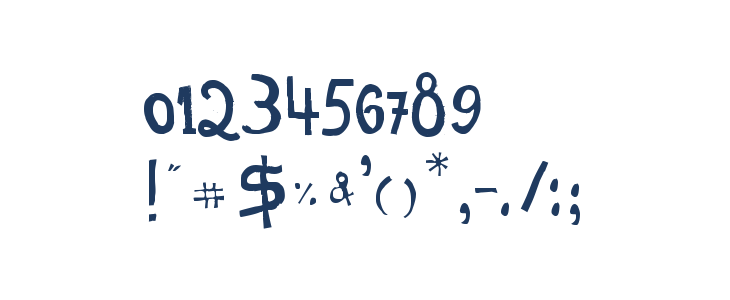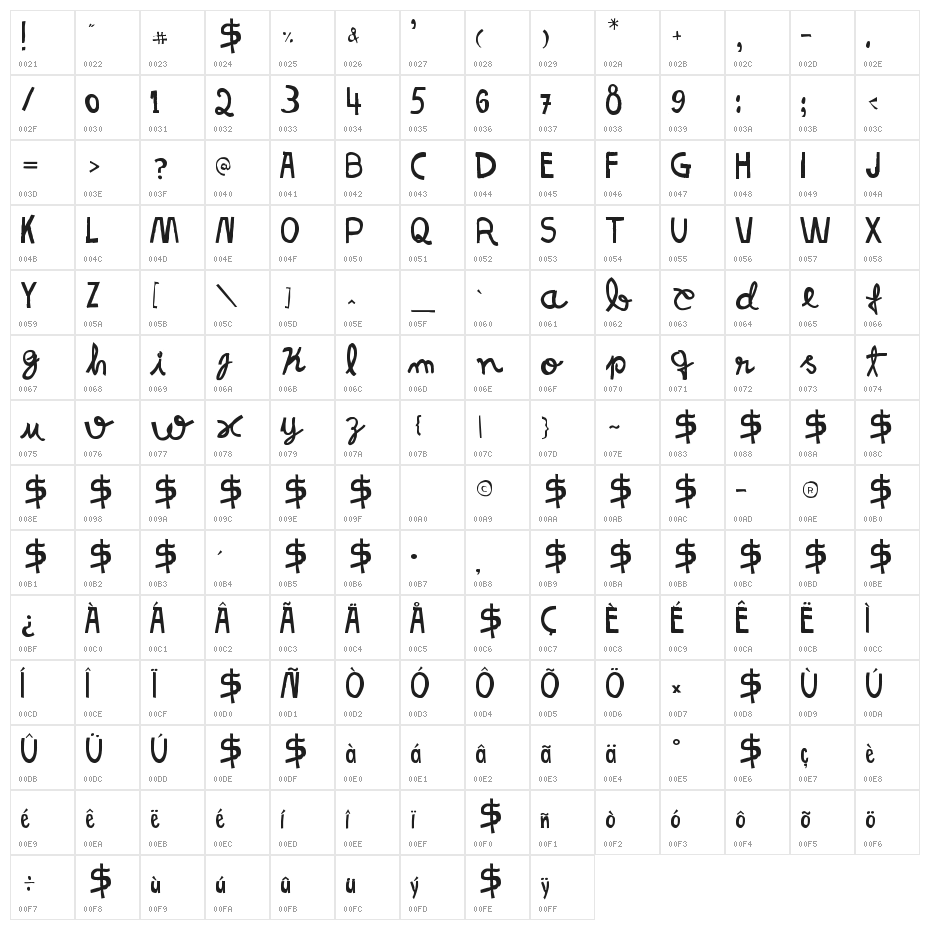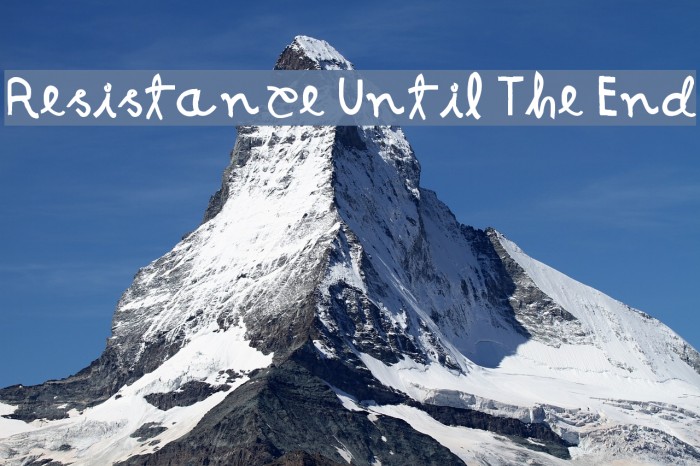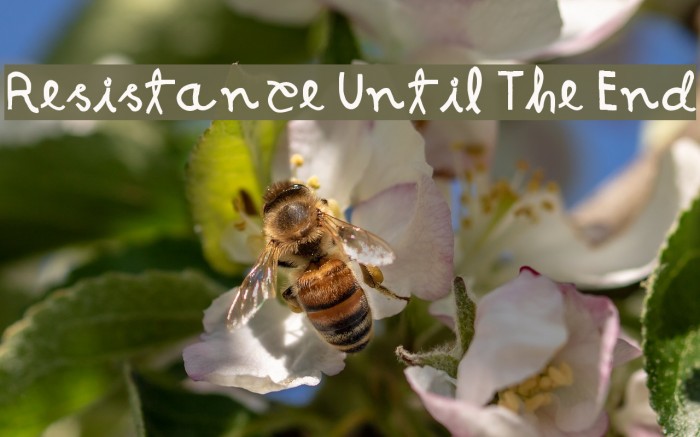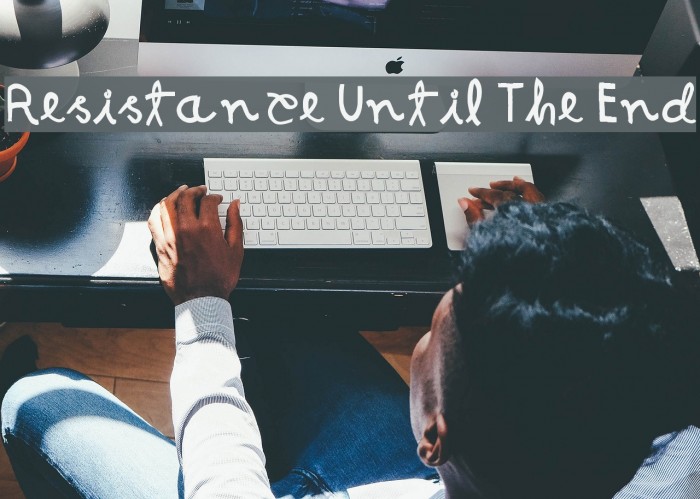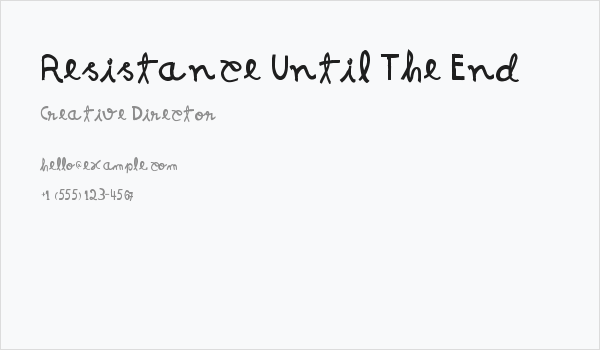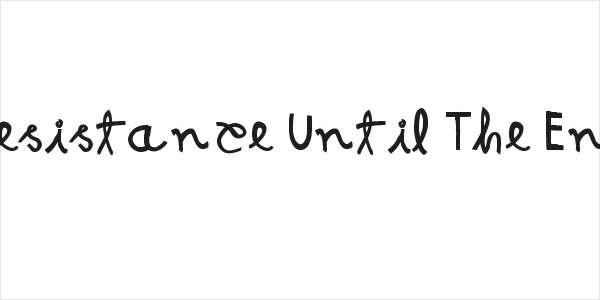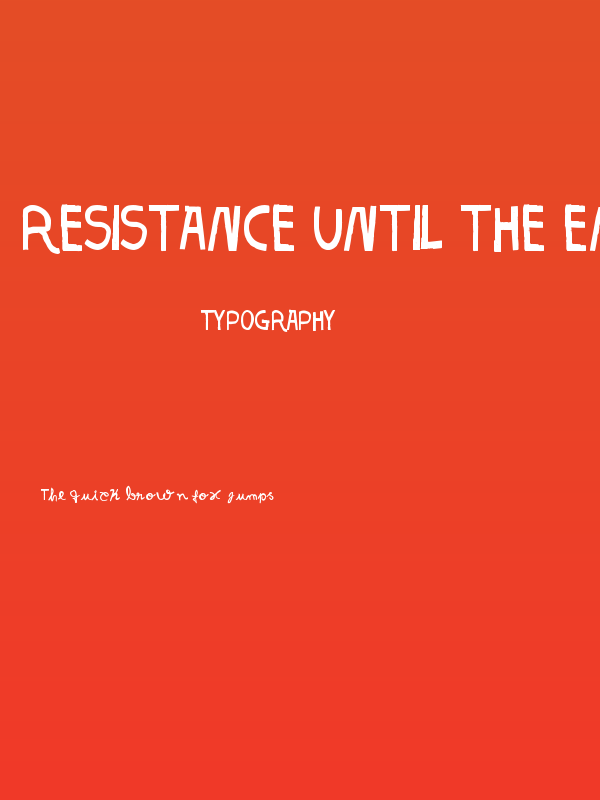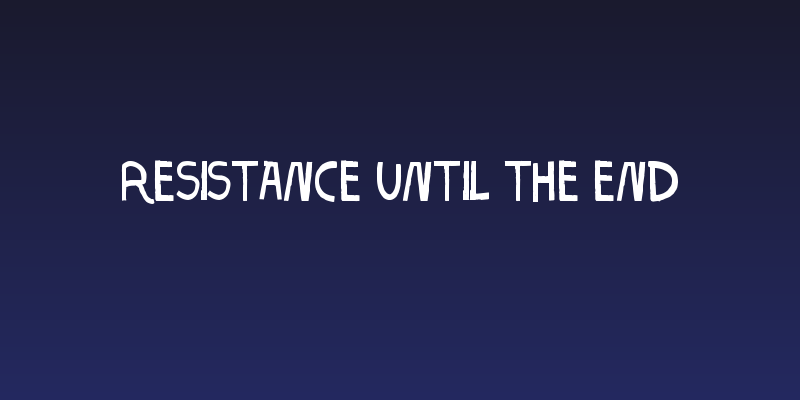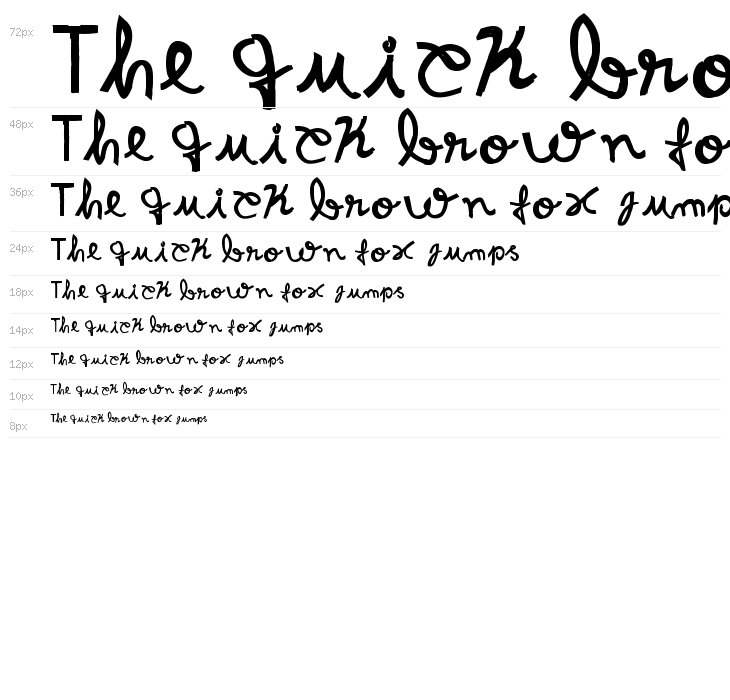
Resistance Until The End Font
Resistance Until The End Description
This font features a bold and expressive style with a hand-drawn appearance. The uppercase letters are tall and slightly irregular, giving a sense of movement and energy. The lowercase letters have a whimsical, playful quality, with varying stroke widths that add to the dynamic feel. Numbers are bold and consistent with the overall style, while special characters maintain the same hand-crafted look. The font's unique character makes it stand out, suitable for projects that require a personal touch or artistic flair.
| Proposed Projects | Ideal for artistic projects, posters, children's books, and creative branding. |